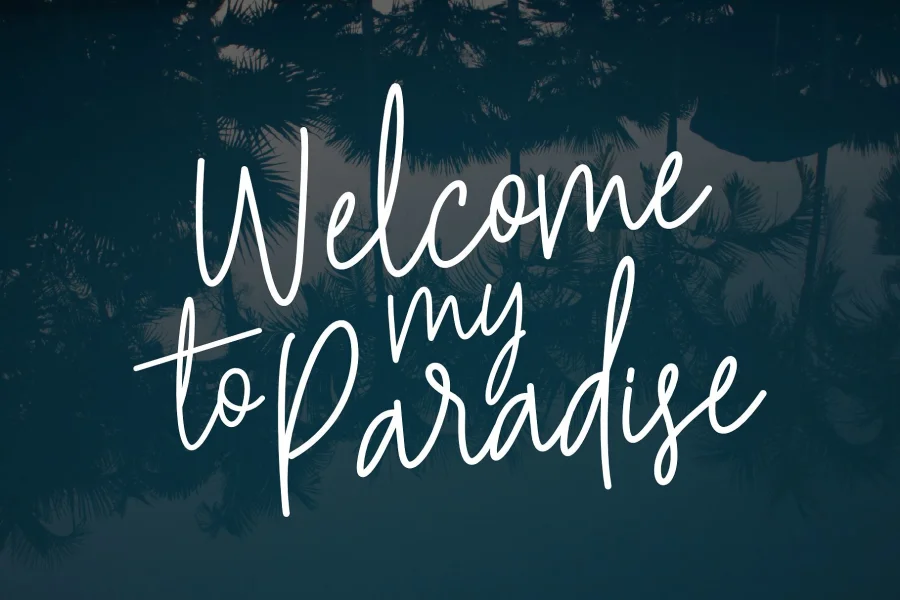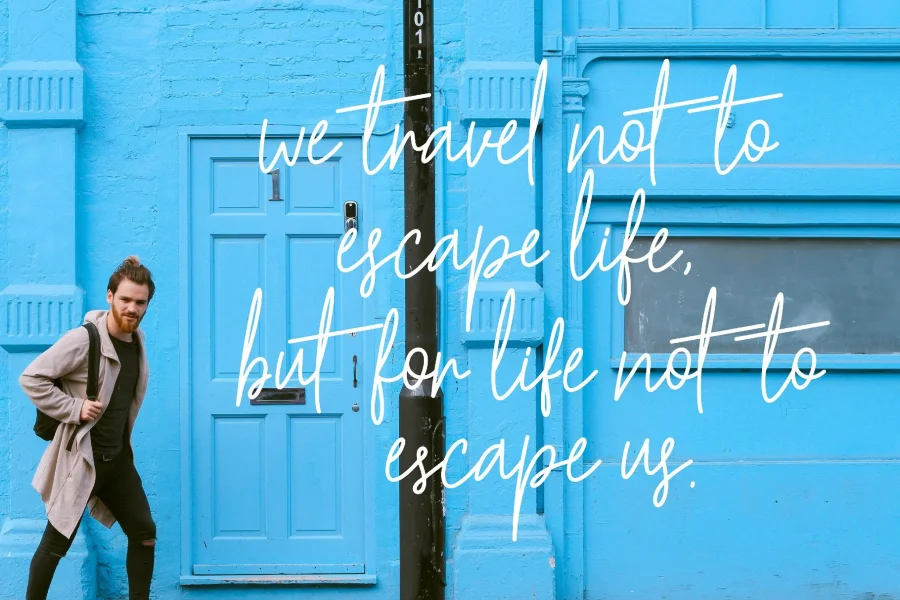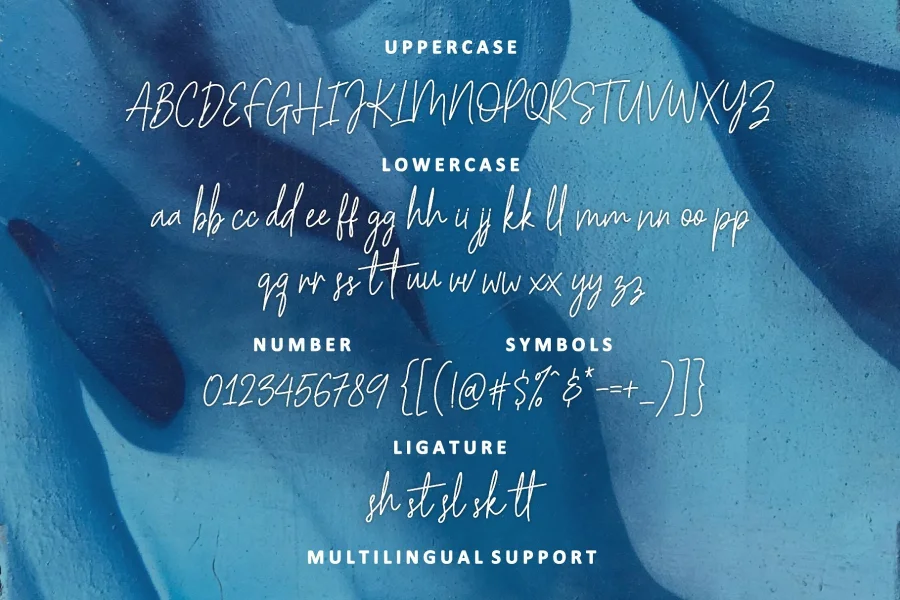
Hesterica is a clean, bouncy, beautiful font, simple and funny. Hesterica can be incorporated into many designs including quotes text, wedding invitations, posters and you can create custom cards to give to your friends and family.
Full version comes with alternates and ligatures!